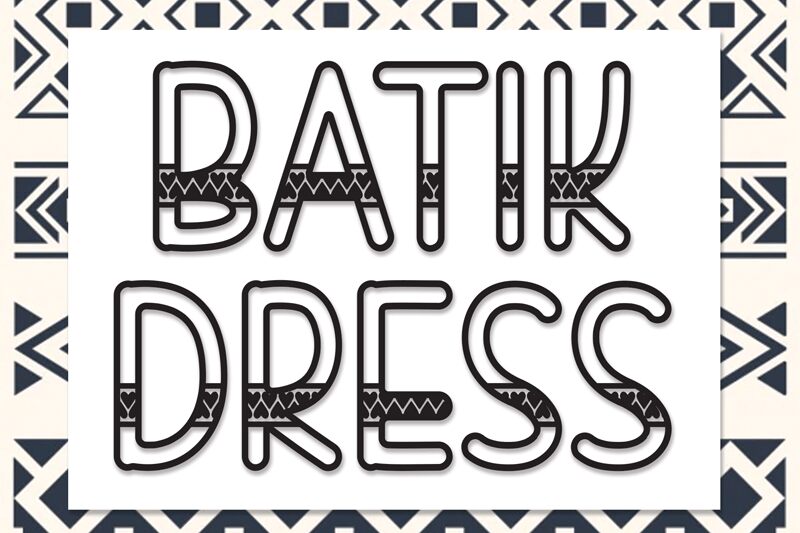
Batik Dress
Batik Dress is a captivating display font that exudes a sense of traditional elegance and artistry. Its intricate, hand-drawn lines and organic shapes evoke the rich cultural heritage of batik textiles, creating a visually striking and distinctive typeface. Batik Dress is a versatile font, well-suited for a range of design applications, from high-end fashion and luxury branding to cultural events and editorial layouts.
Its decorative flair and unique personality make it a standout choice for designers seeking to infuse their work with a touch of timeless sophistication and global inspiration.